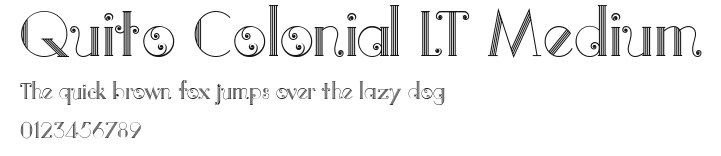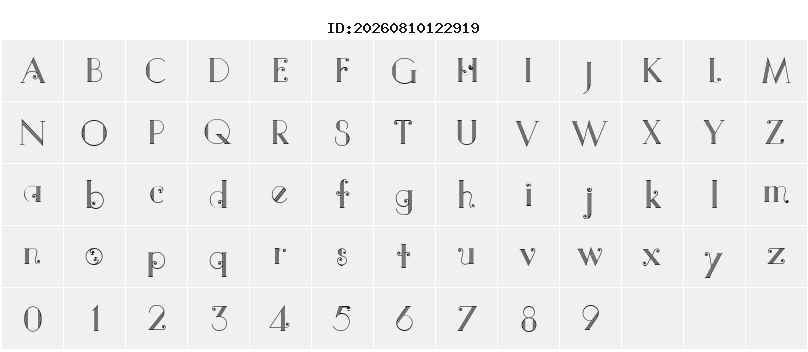
• Font Name: Quito Colonial LT Medium
• Full Font Name: Quito Colonial LT
• Designer: David Ortega
About Quito Colonial LT Medium.ttf
Quito Colonial LT Medium.ttf is a modern, elegant sans-serif font designed for ultimate readability and visual harmony. Perfect for branding, headlines, web design, and print materials.